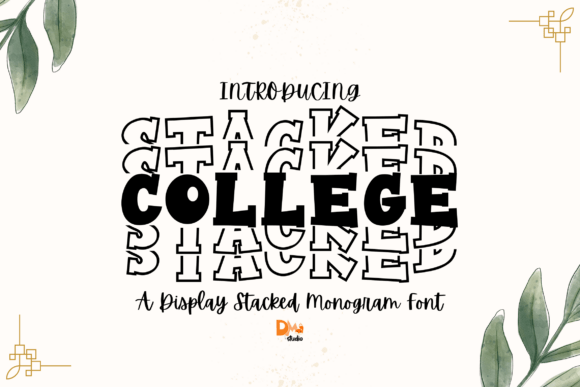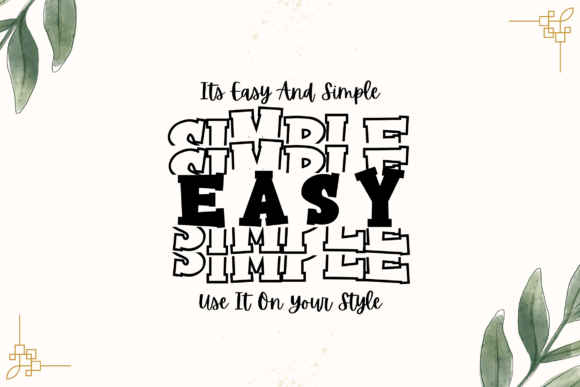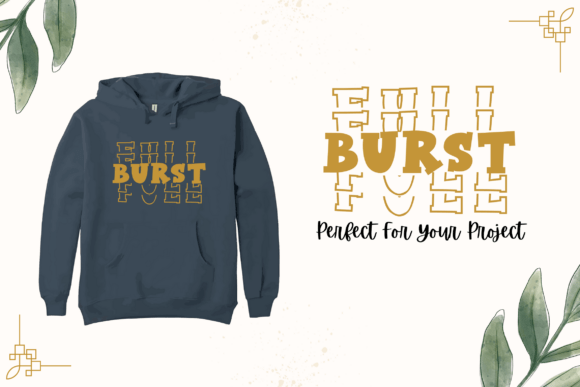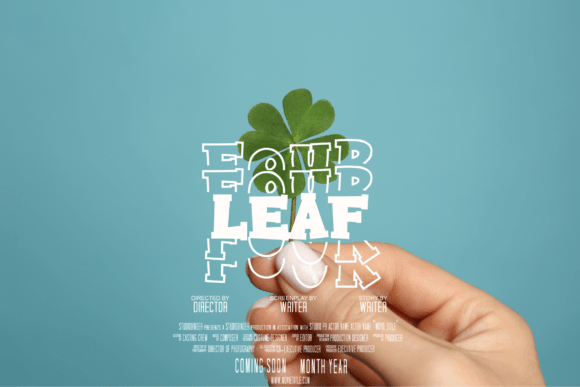
Stacked College Monogram Font
About the Stacked College Monogram Font
Let us introduce you to Stacked College Monogram Font, where timeless design meets modern craftsmanship. Experience the elegance of traditional academia with the Stacked College Monogram Font. This robust, well-defined typeface is optimized for crafting high-impact monograms that resonate with the classic intercollegiate charm. This font’s foundation in university and varsity lettering makes it an ideal solution for sports branding or school merchandise. Furthermore, the ability to craft beautiful personal initials, team logos or vintage-inspired designs opens up a wide array of creative possibilities. Harness the power of its unique stacked layout to fashion breathtaking monograms for embroidery, apparel, or digital designs. Embrace a journey back to the cherished old school days with the Stacked College Monogram Font.
Stacked College Monogram Font Usage Examples
Stacked College Monogram Font Example